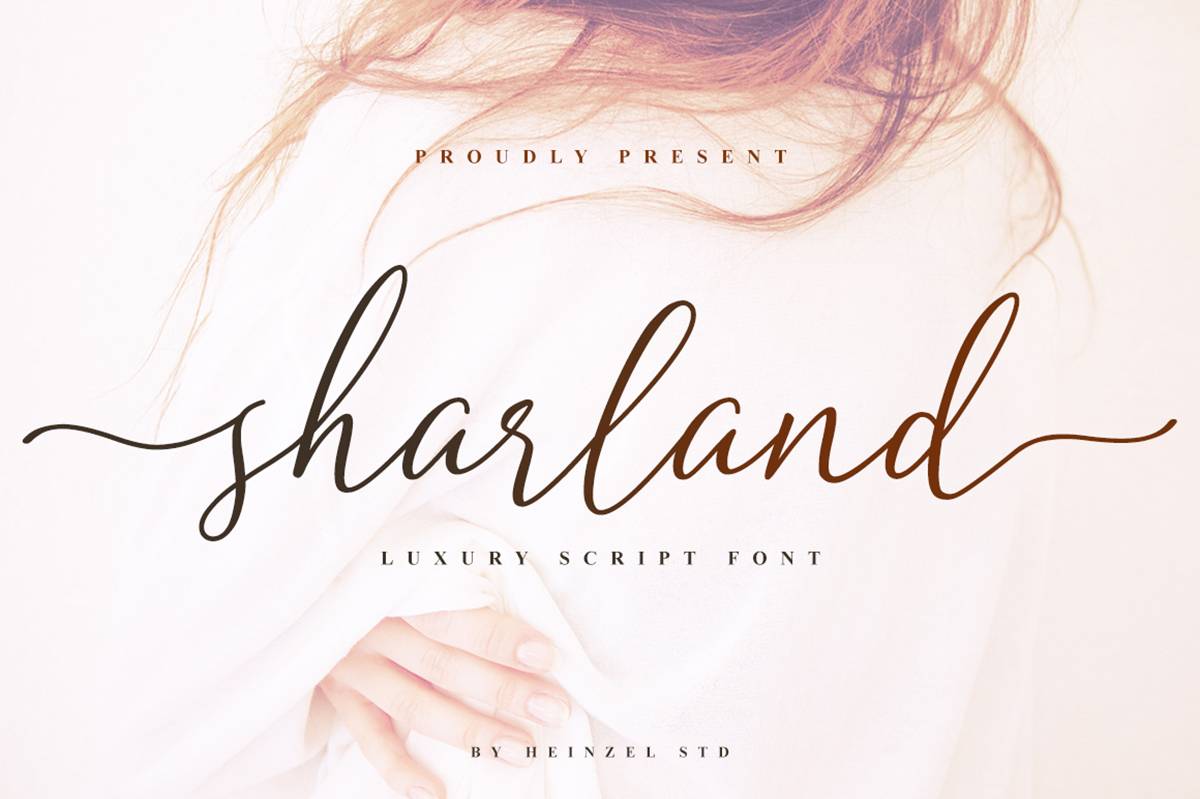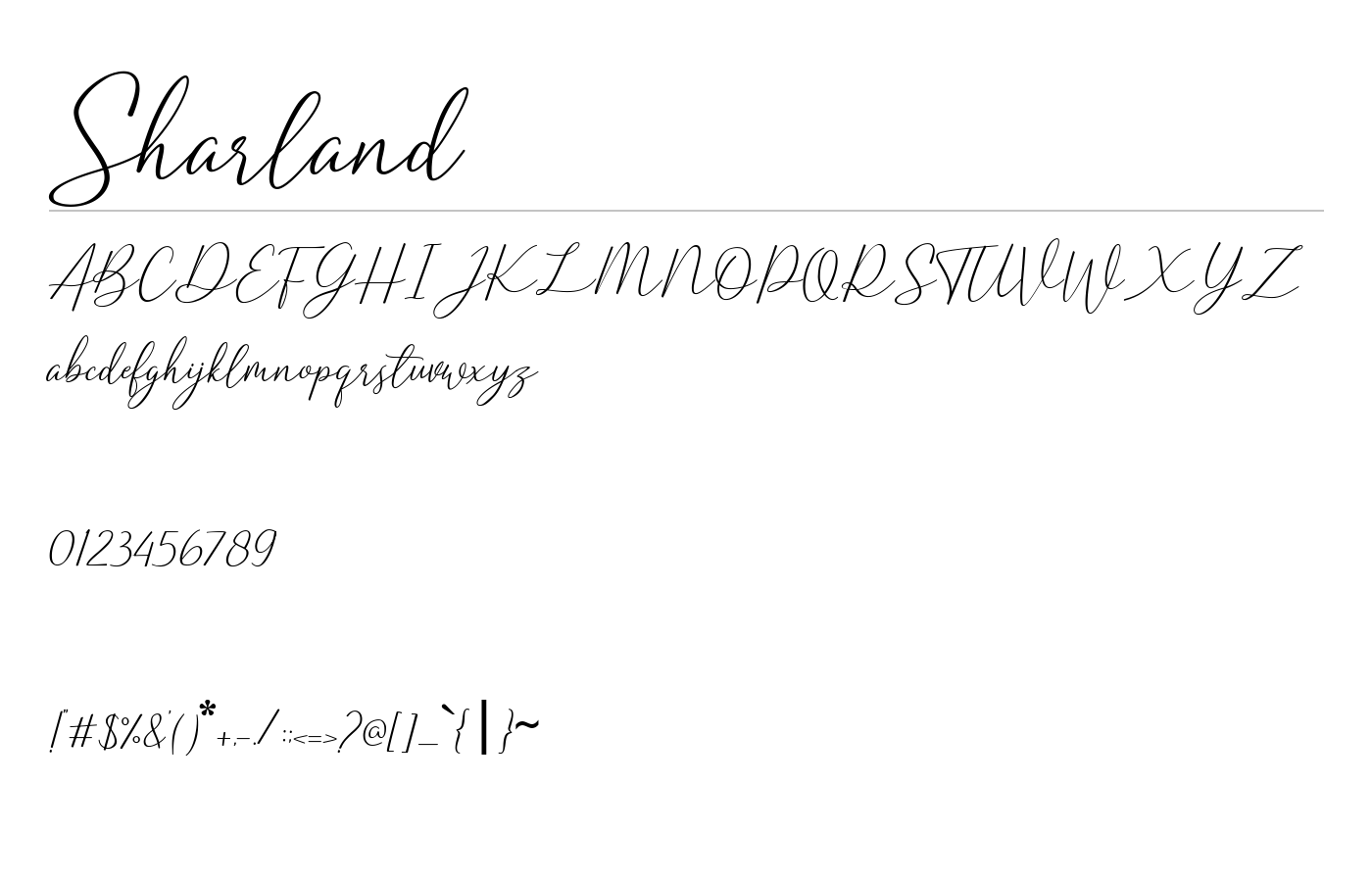
Sharland Luxury Script is an elegant, thin-lined script font that features graceful, flowing letterforms with a hand-written feel. Its delicate strokes and smooth curves give it a refined and sophisticated personality, making it perfect for luxury branding, wedding invitations, and stylish editorial designs where a touch of elegance and charm is desired. This font works beautifully in headlines or logos, adding a sense of exclusivity and gentle refinement.
Sharland Luxury Script Font
About Sharland Luxury Script Font
| Font family | Sharland Luxury Script Font |
| Designer | Nofi Sofyan Hadi |